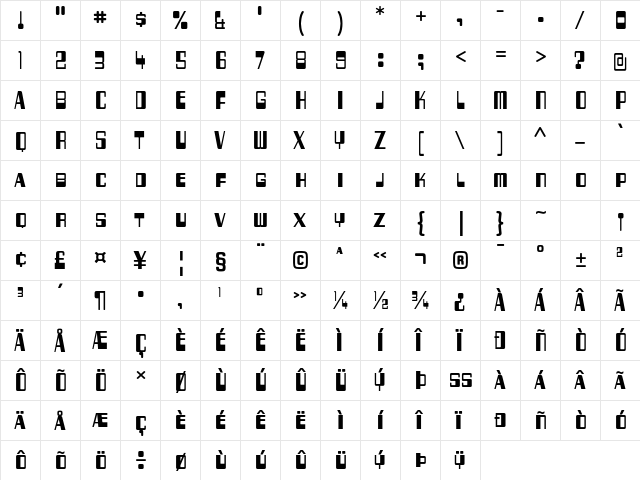
256 Bytes Regular
Regular · Ray Larabie Ray Larabie ·
Design Context for 256 Bytes Typeface
256 Bytes is a composed and adaptable typeface that performs quietly and consistently across a wide range of design contexts.